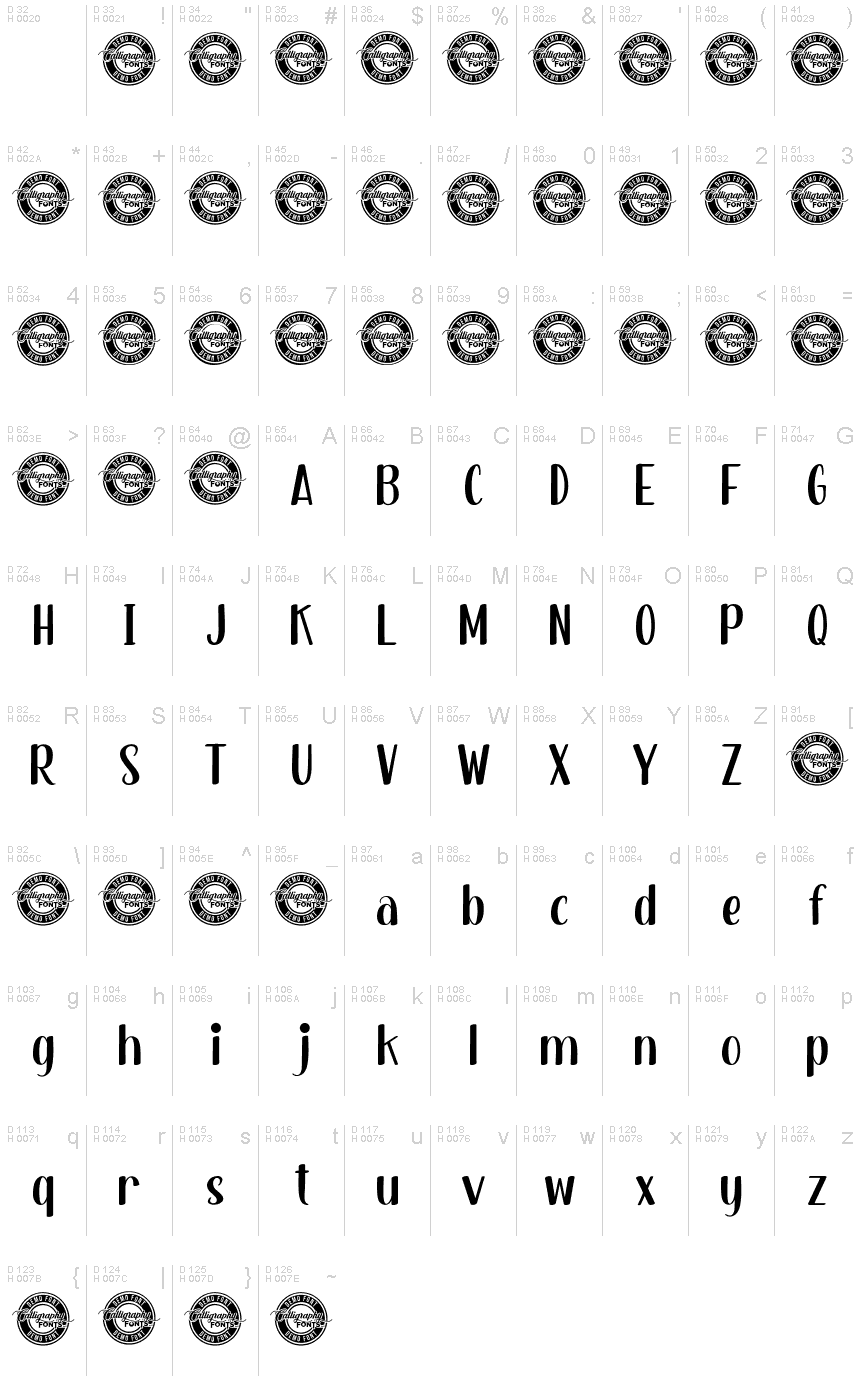
Pretty Good Demo
Pretty Good is a narrow handwritten font designed by Widiyanti & Sarah SP. Its unique style makes it perfect for crafting one-of-a-kind logos, invitations, greeting cards and other creative projects.